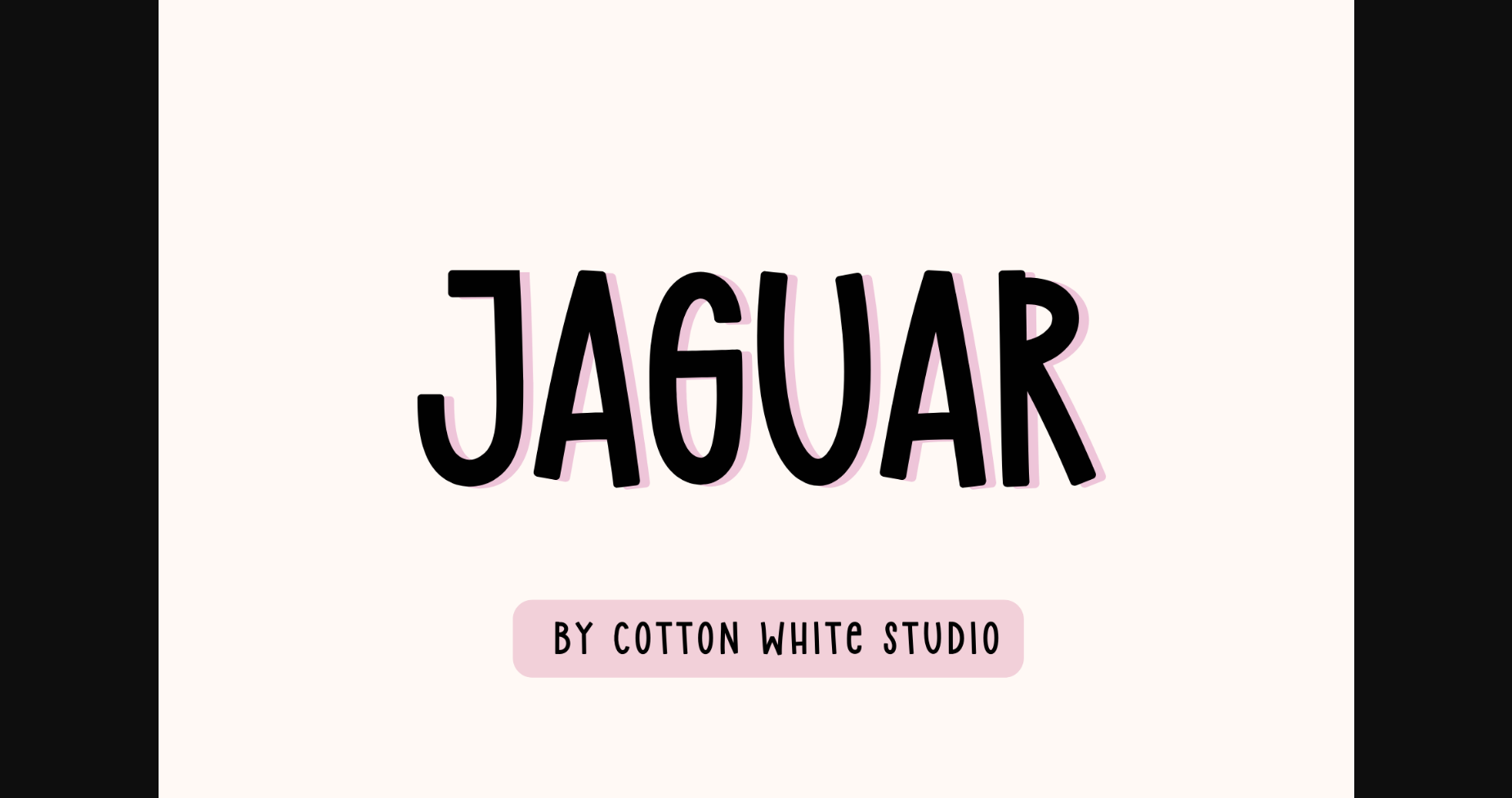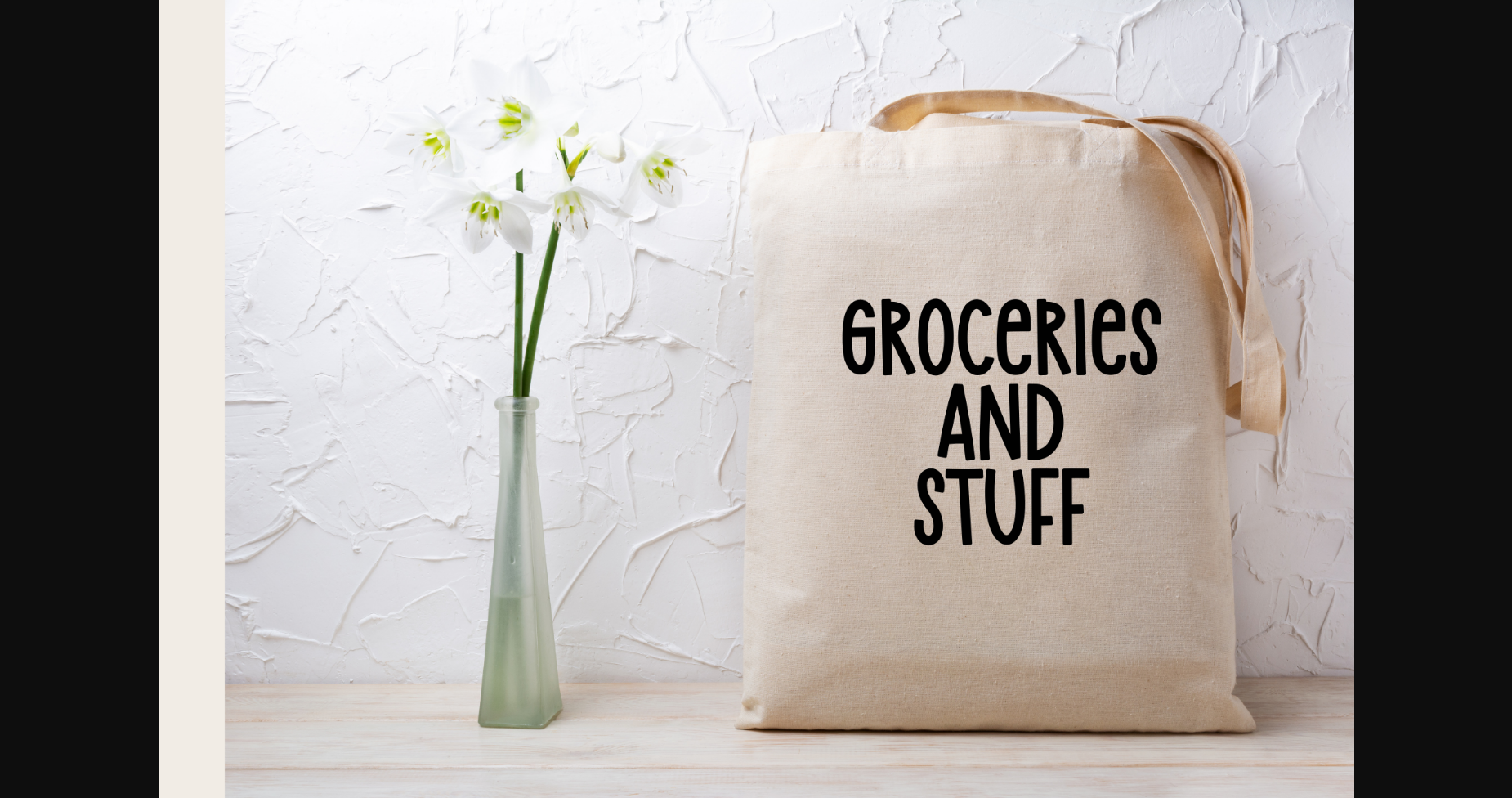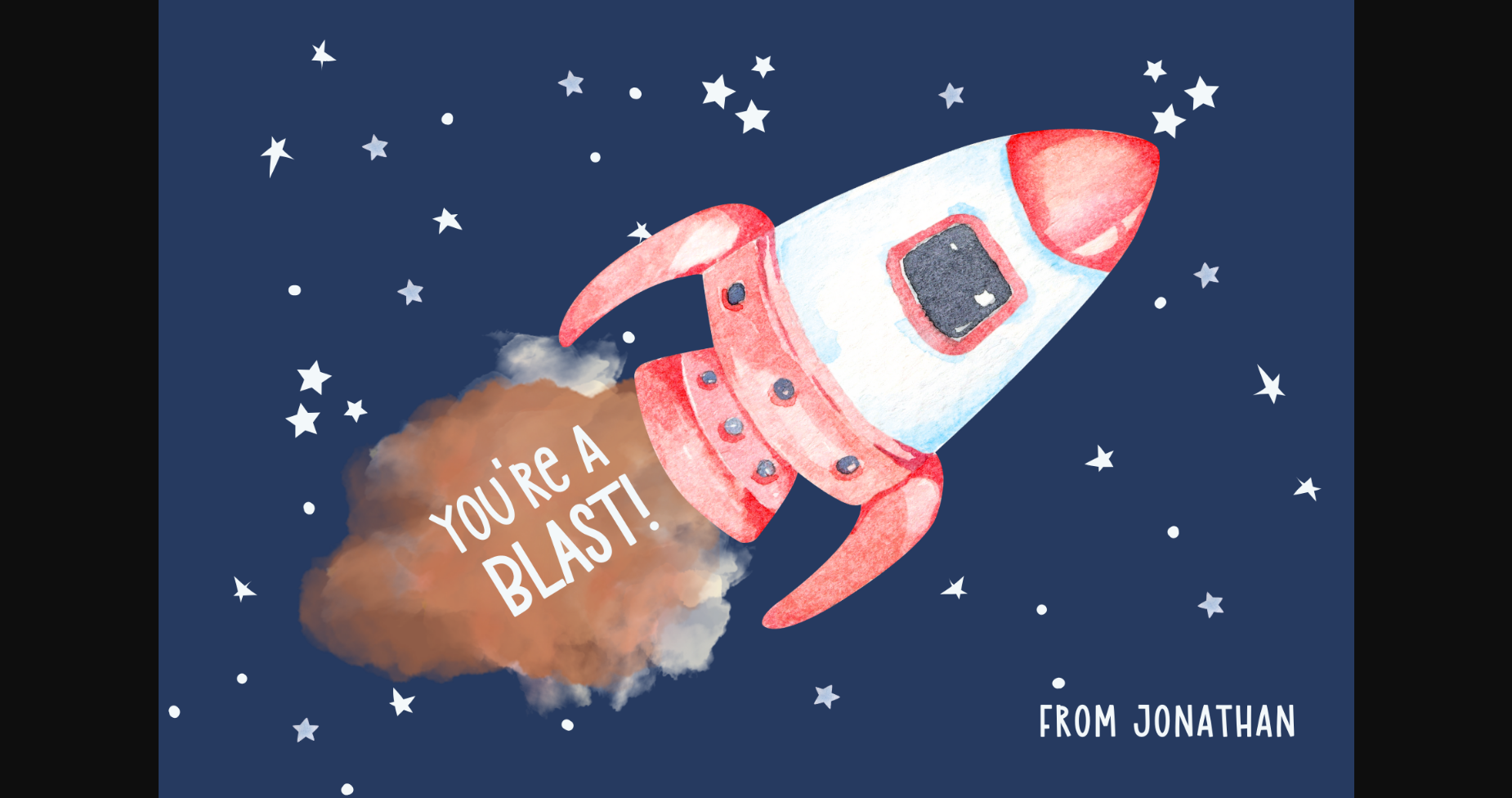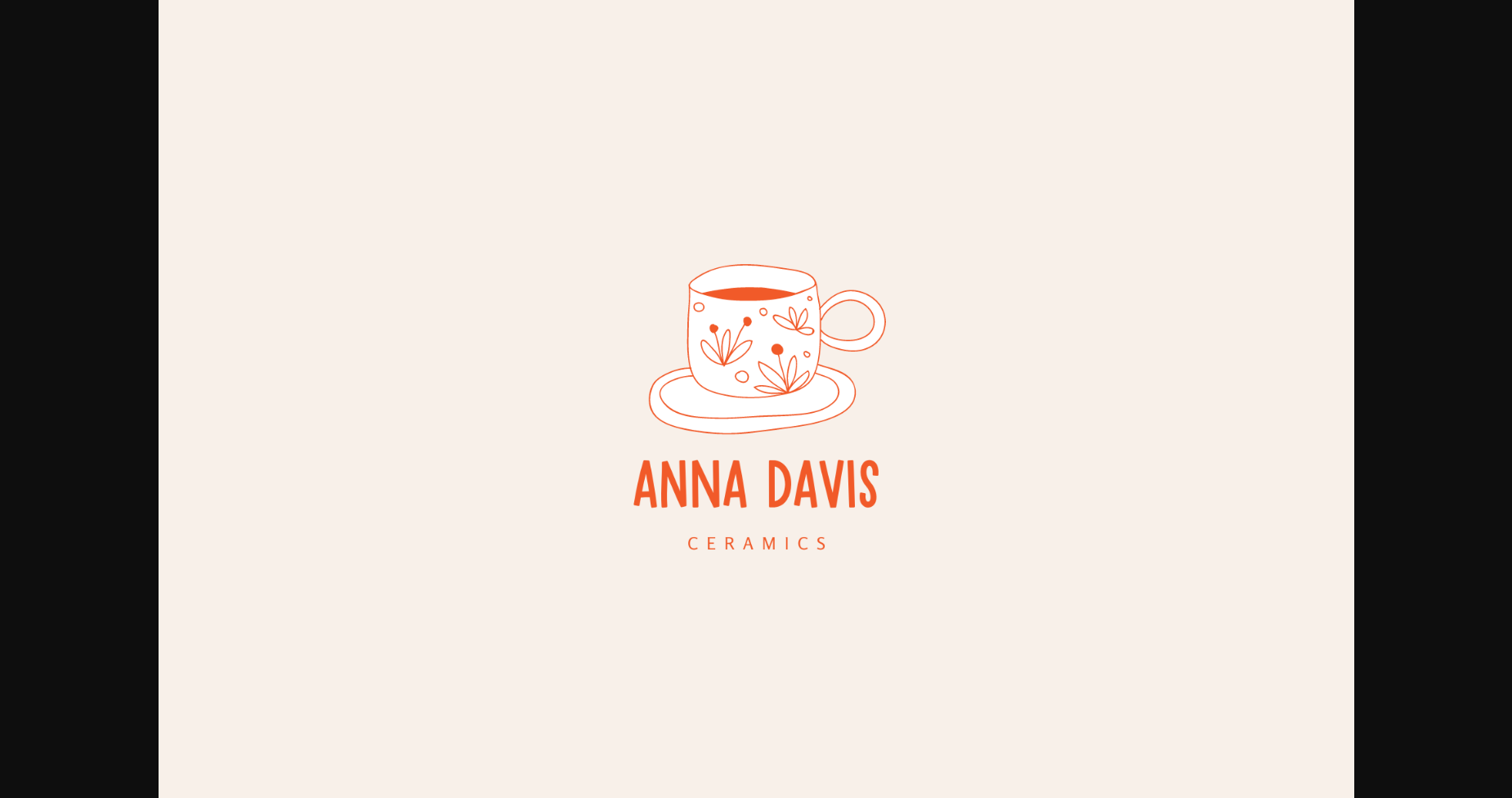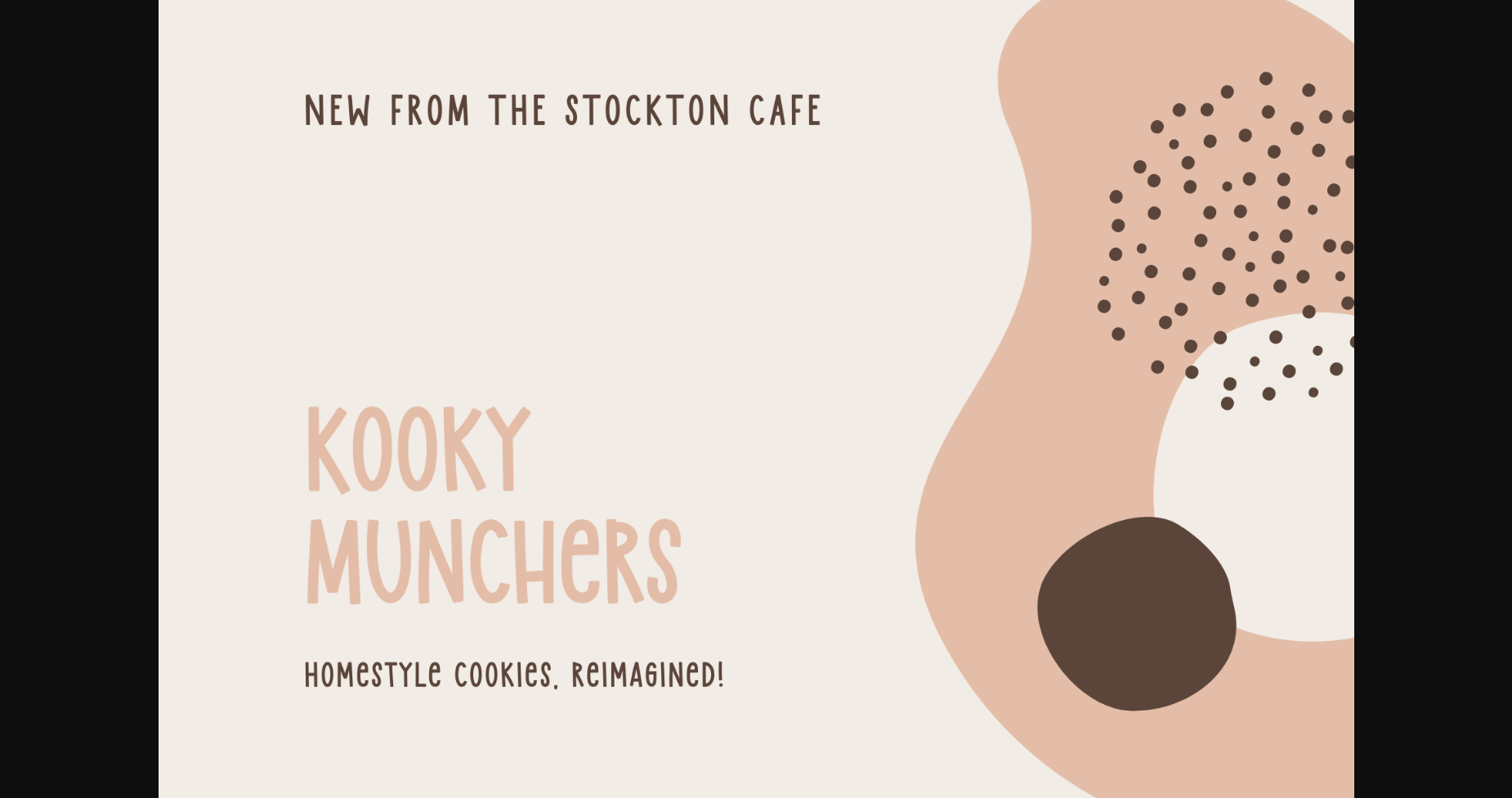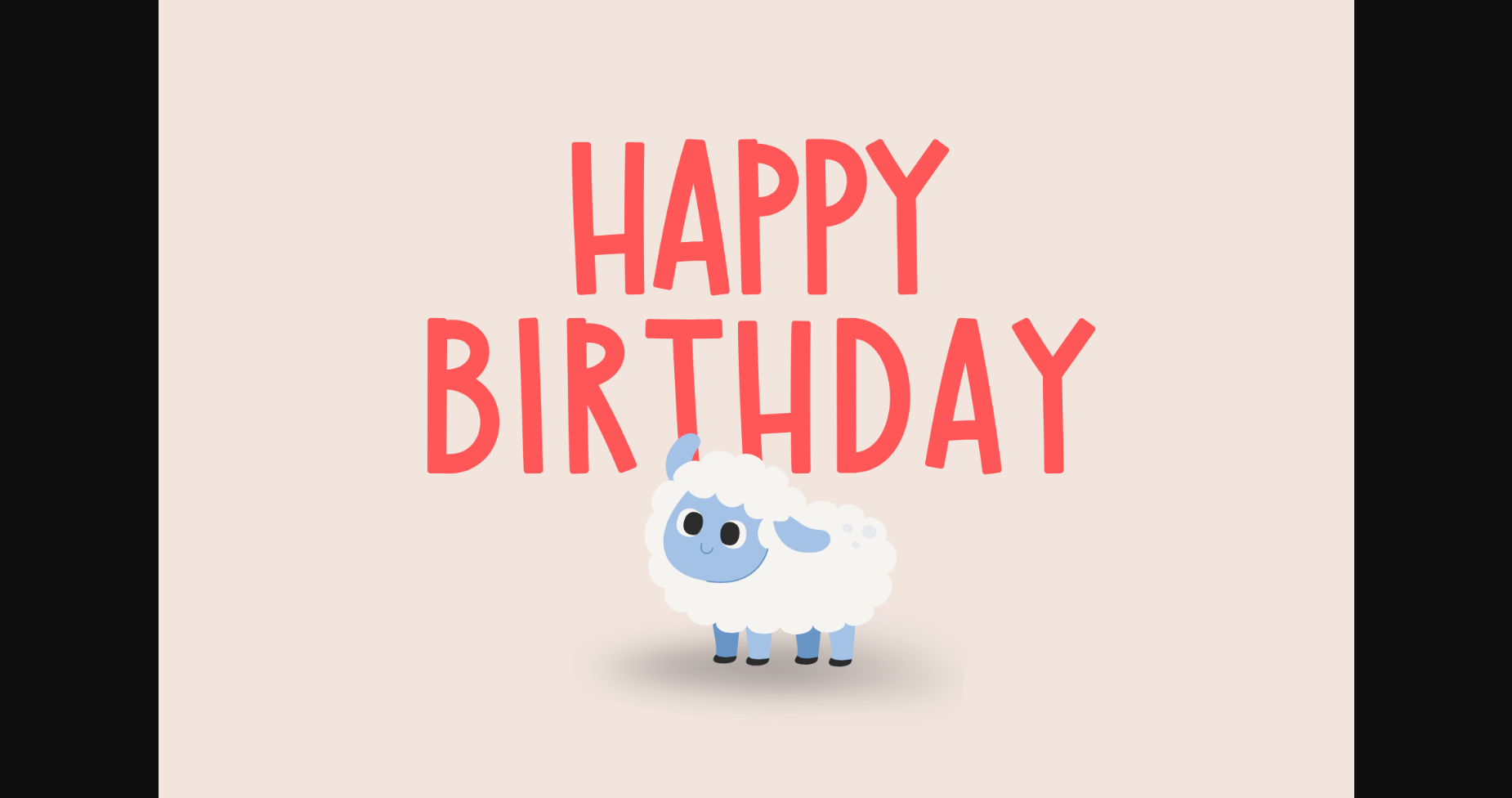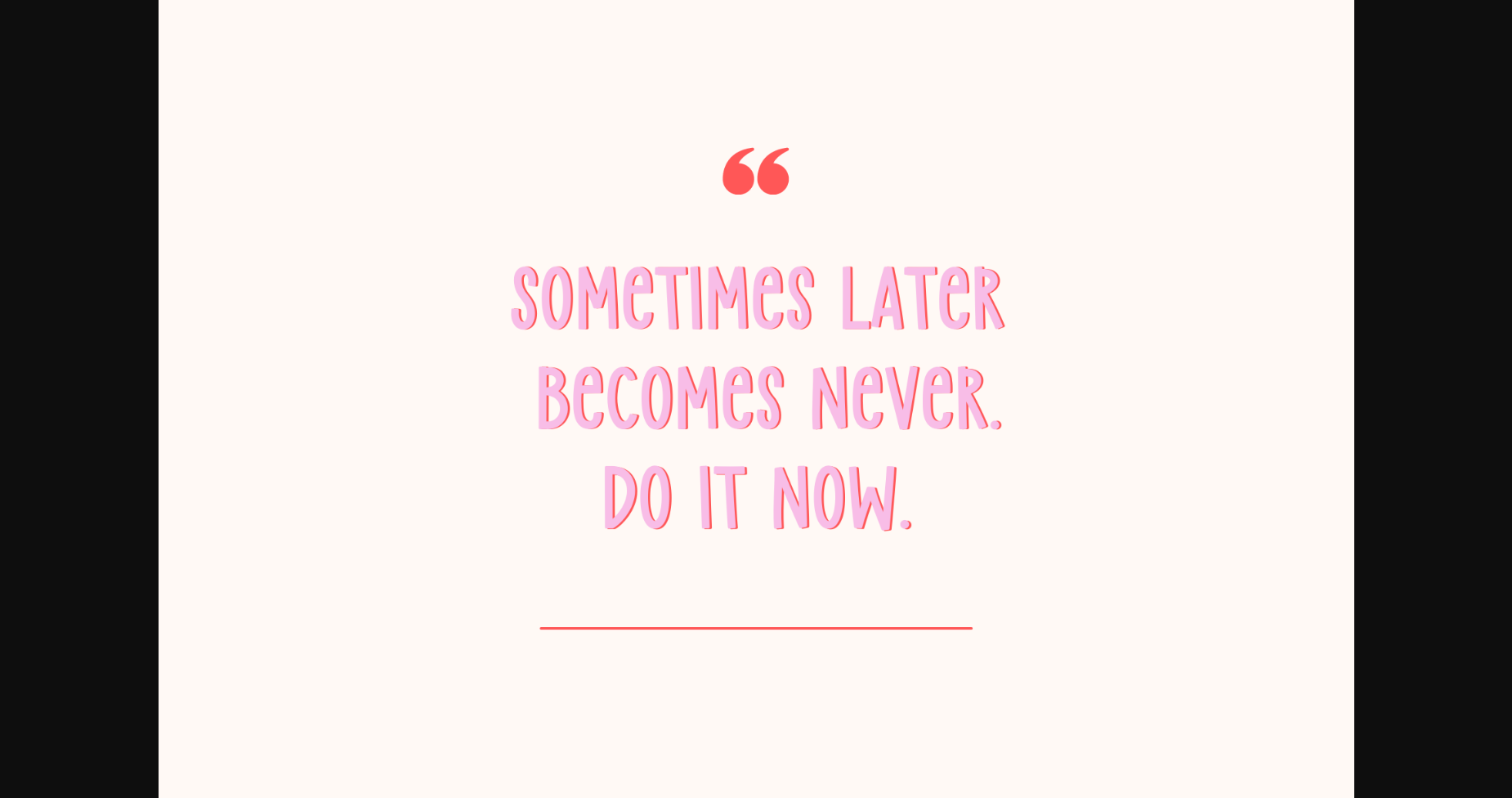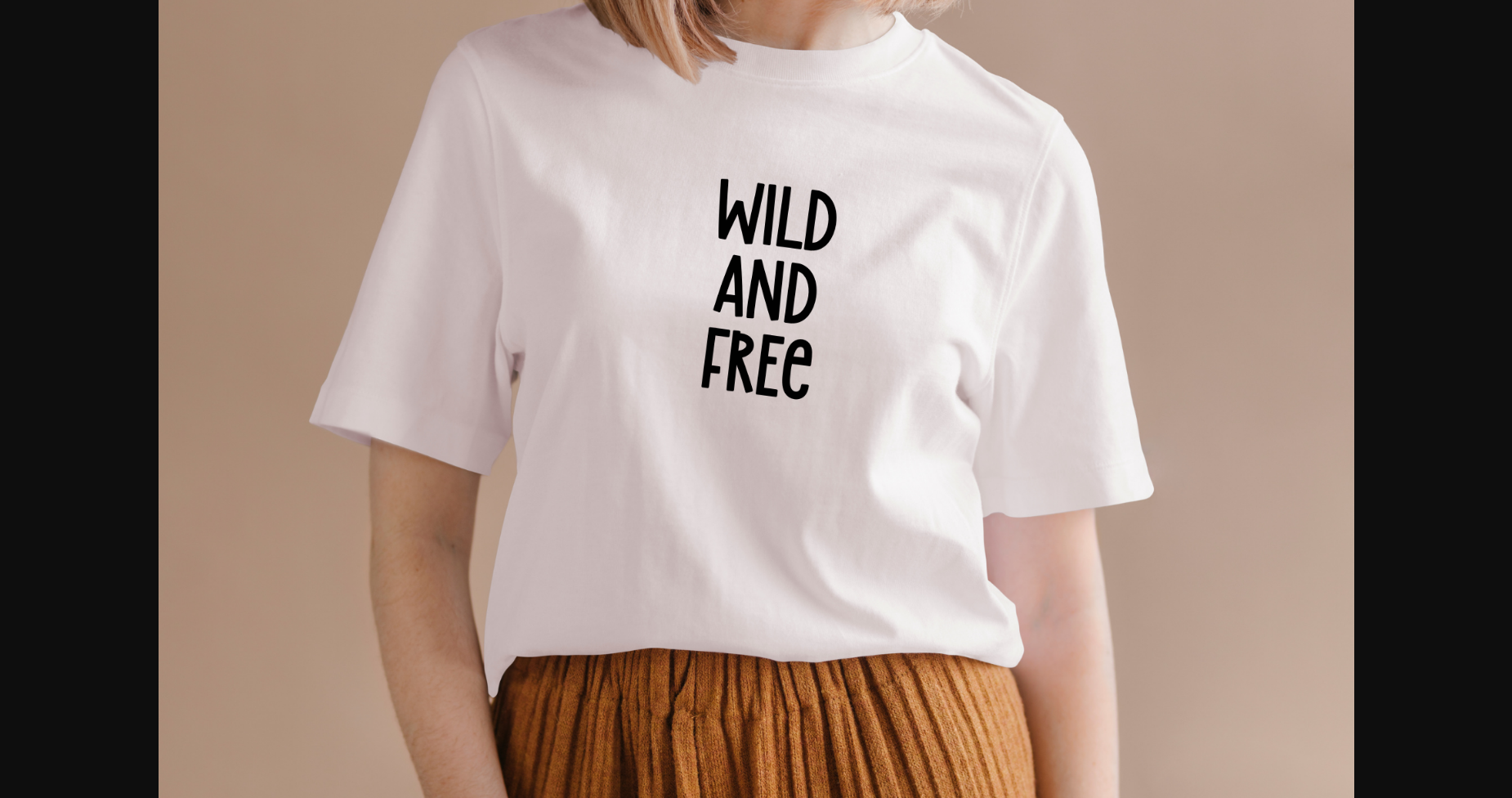
Use the Jaguar font to create super cute logos, branding, notebooks, journals, labels, stickers, blogs, quotes, greeting cards, tea towels, apparel, pillows, mugs, toys, posters, baby clothing, picture books and so much more.